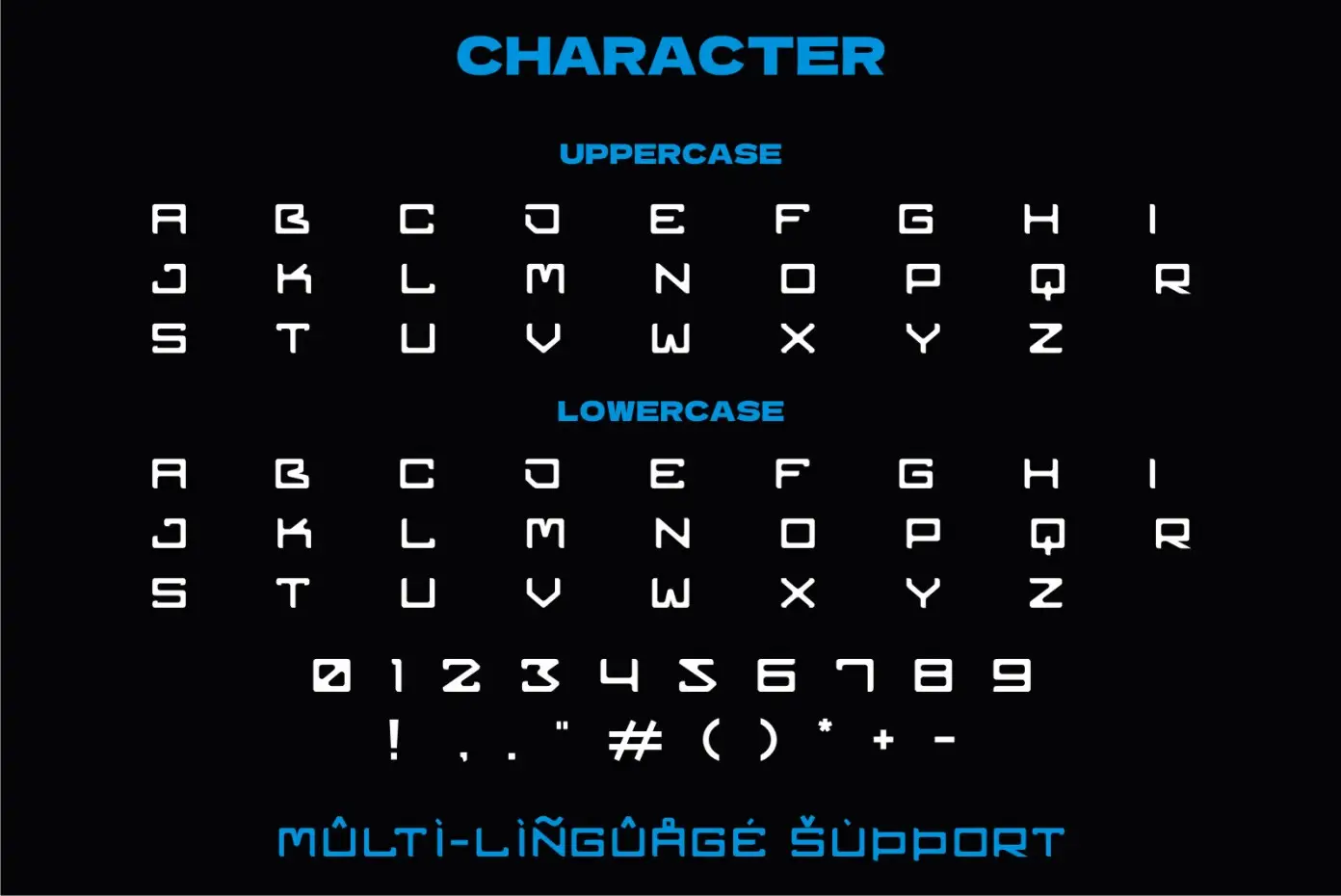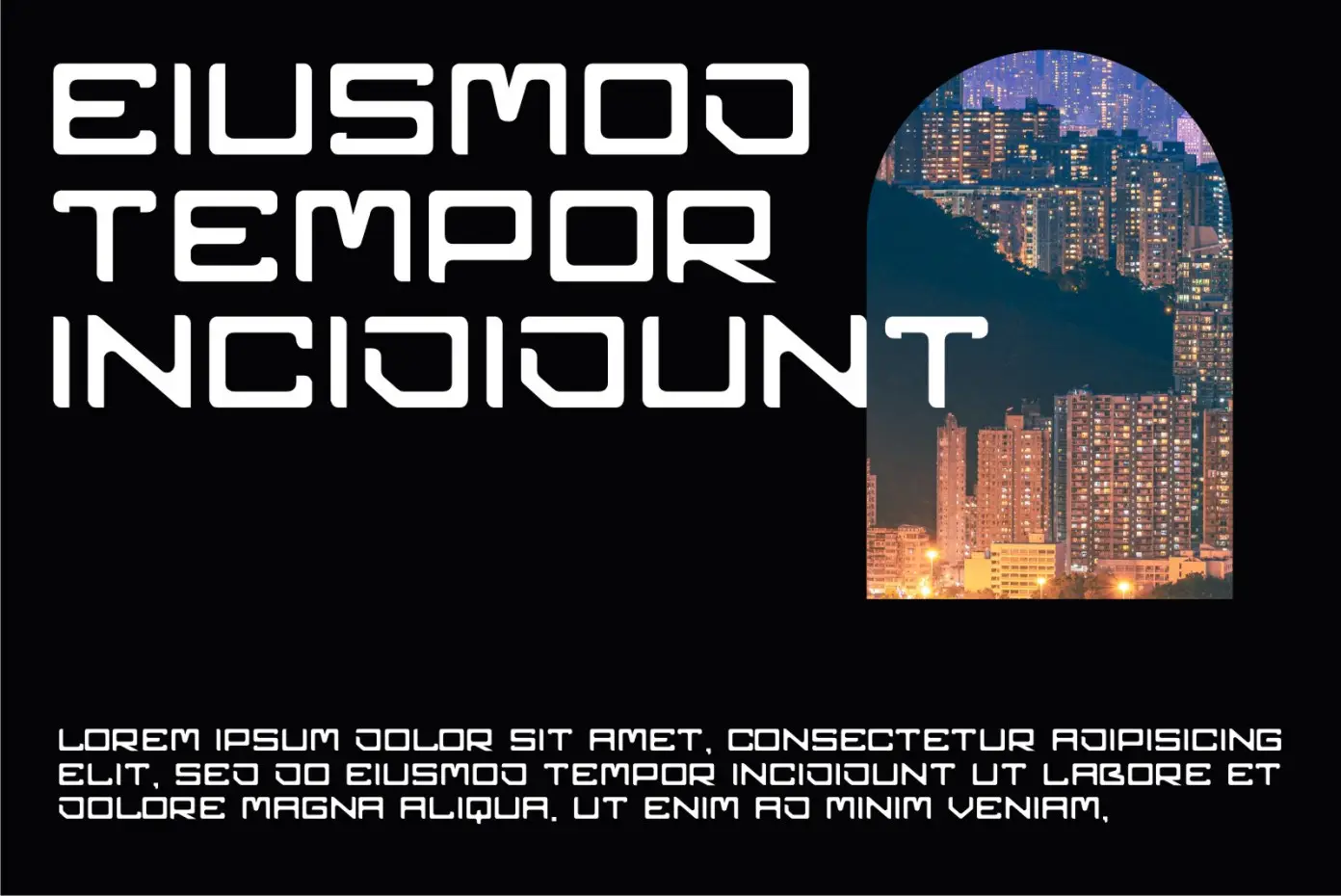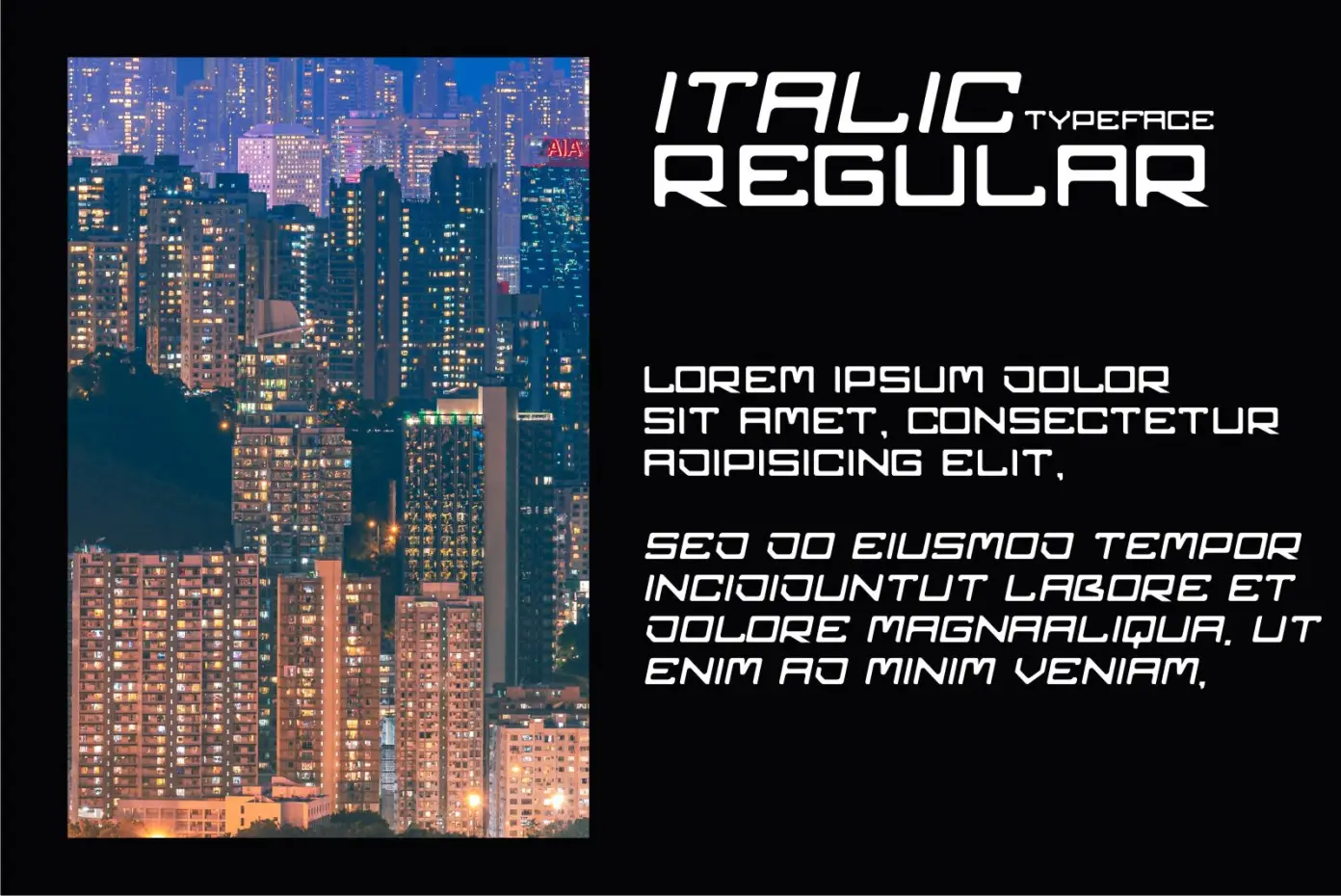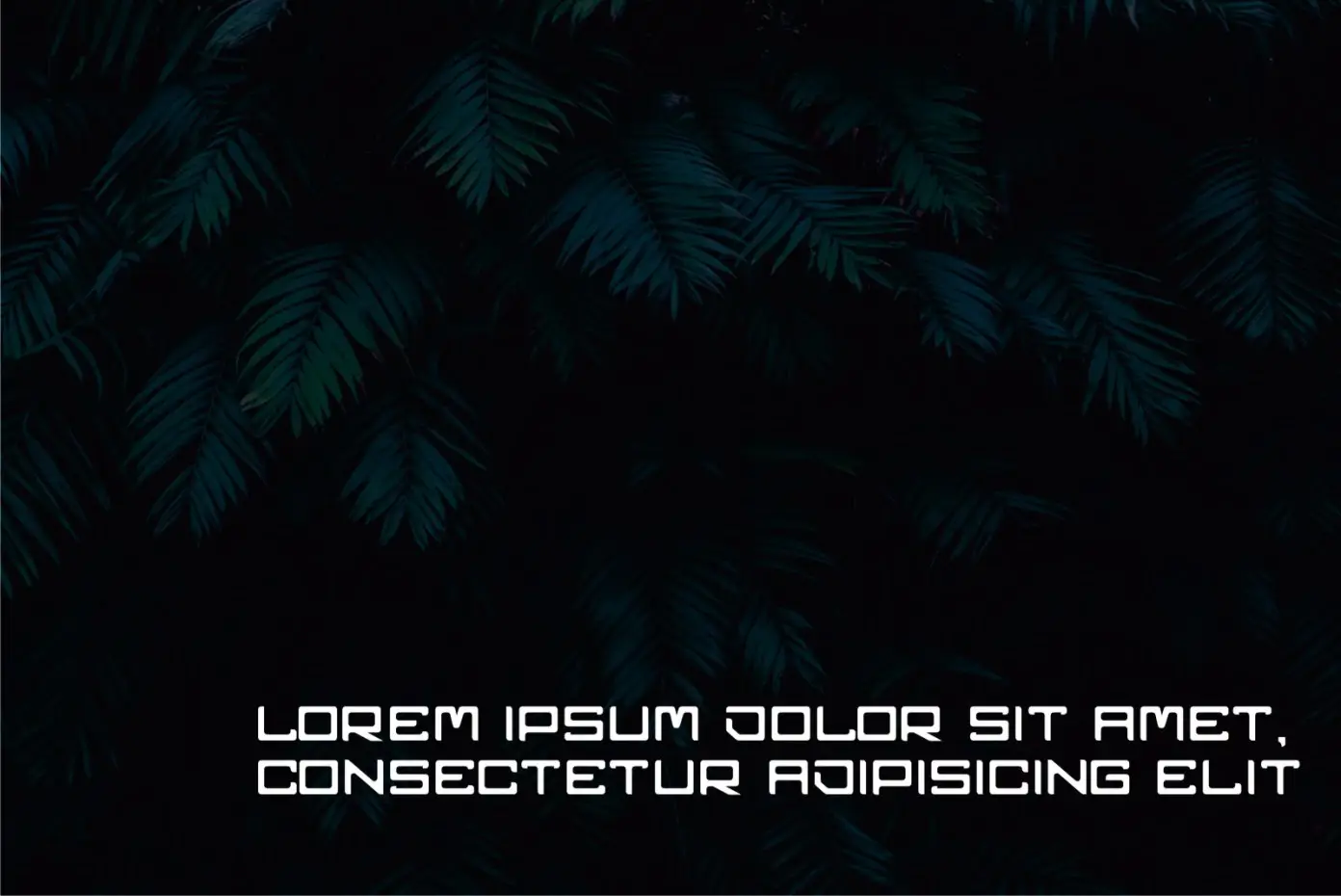
The Zeora Display Font is a striking typeface designed to capture attention and elevate your projects. With its bold and modern aesthetic, this font is perfect for a variety of applications, including branding, logos, web design, and print materials.
- Styles: Display
- Weights: Regular, Bold
- Ideal for headlines and promotional materials.
- Use in digital and print formats for maximum impact.
- Pair with complementary sans-serif fonts for a balanced design.